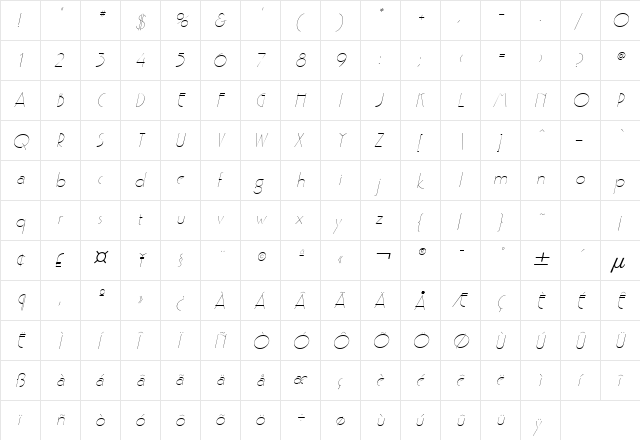
Gaston Wide Italic
Design Context for Gaston Wide Typeface
Gaston Wide takes a measured approach to typography — its balanced proportions and neutral character make it a reliable workhorse for both digital and print work. The slanted form adds forward momentum and visual energy.